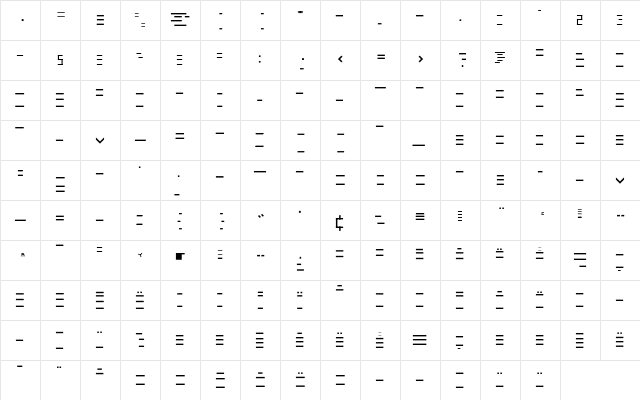
Minimum BichroMediumHorizontal
Design Context for Minimum Typeface
Minimum is a composed and adaptable typeface that performs quietly and consistently across a wide range of design contexts.